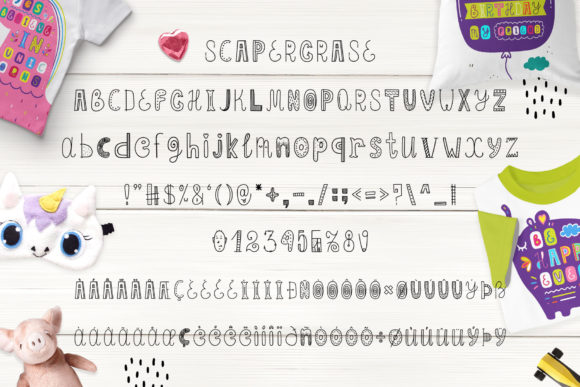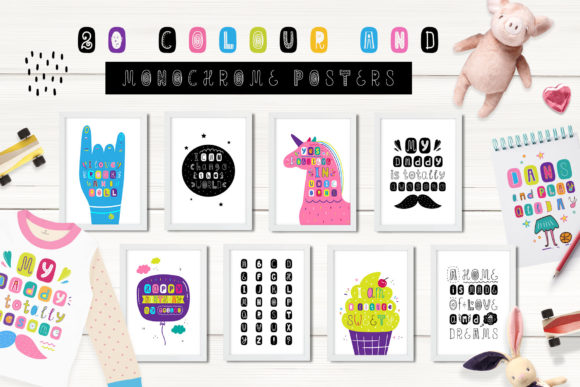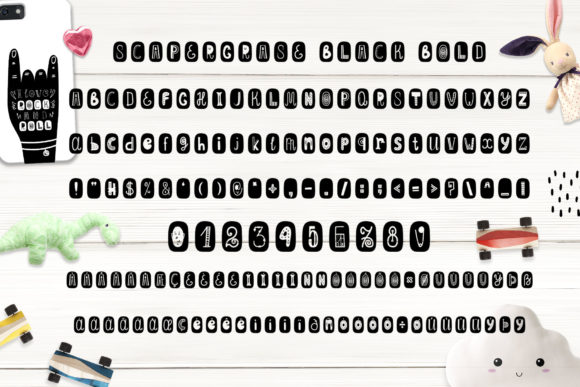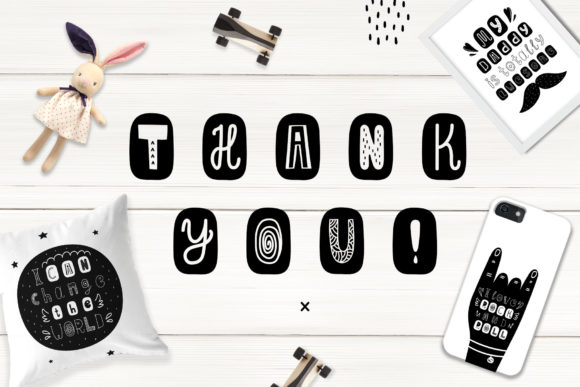
Scapegrace Font
About Scapegrace Font
Scapegrace is a stunning and playful handwritten font, full of whimsical charm. It will add a playful feel to any design project!